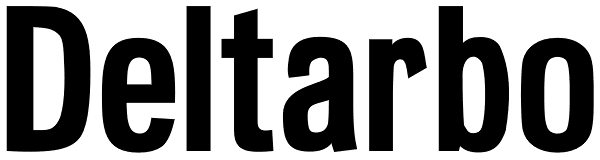
Deltarbo
Deltarbo is a medium-heavy sans-serif typeface that is designed primarily for great legibilty in graphics and display situations, with clean lines and a modern "rounded-rectangle" feel. Please note that this font is not intended to be formal, the...